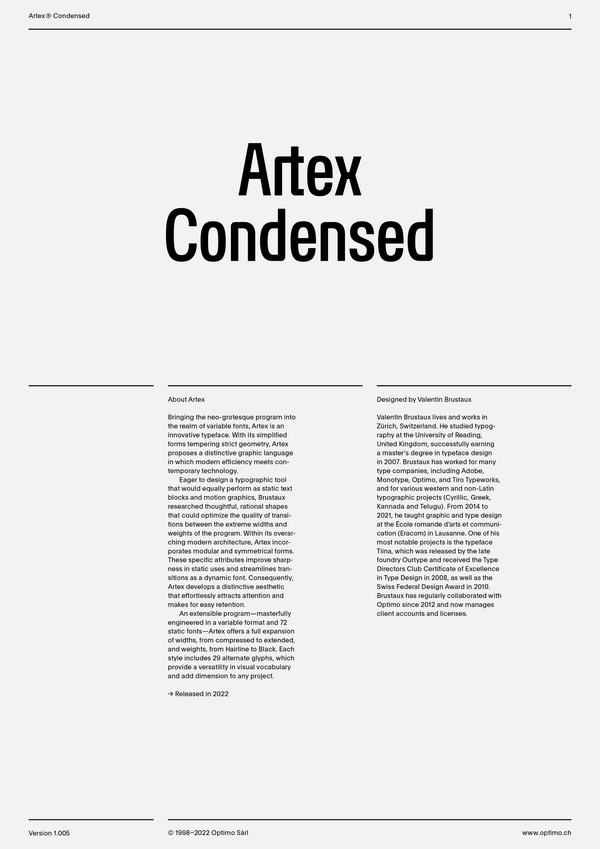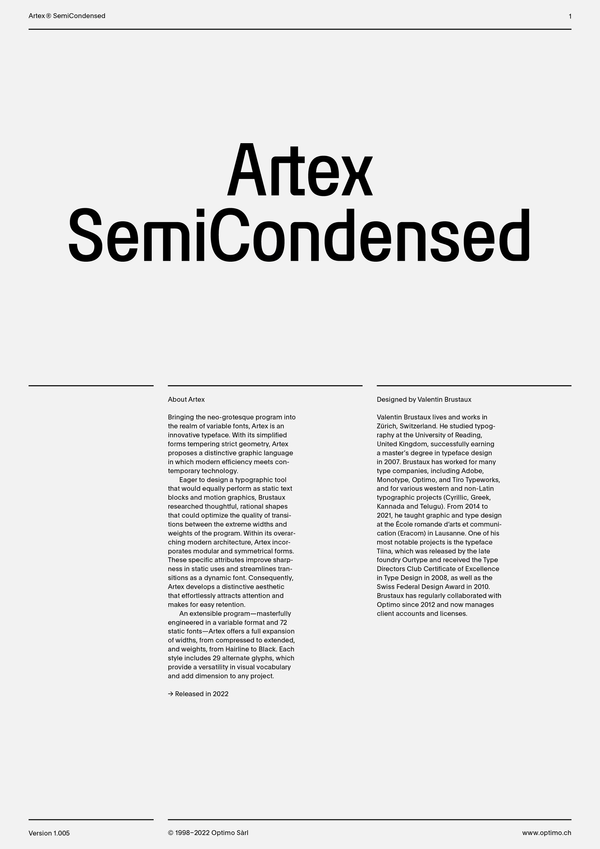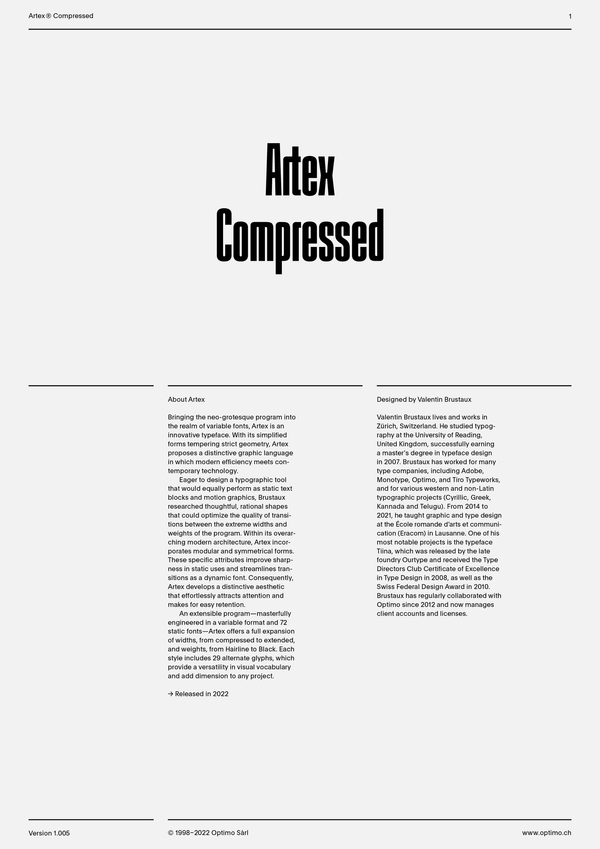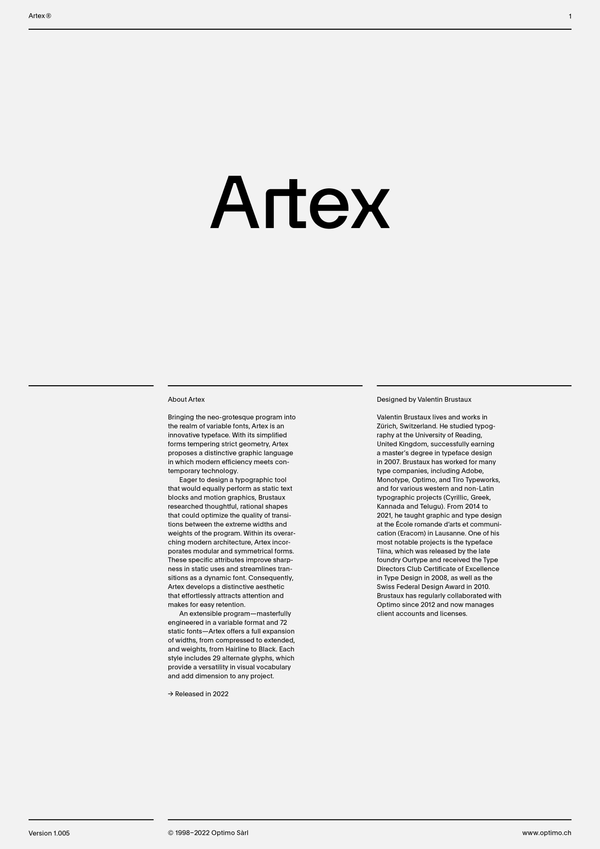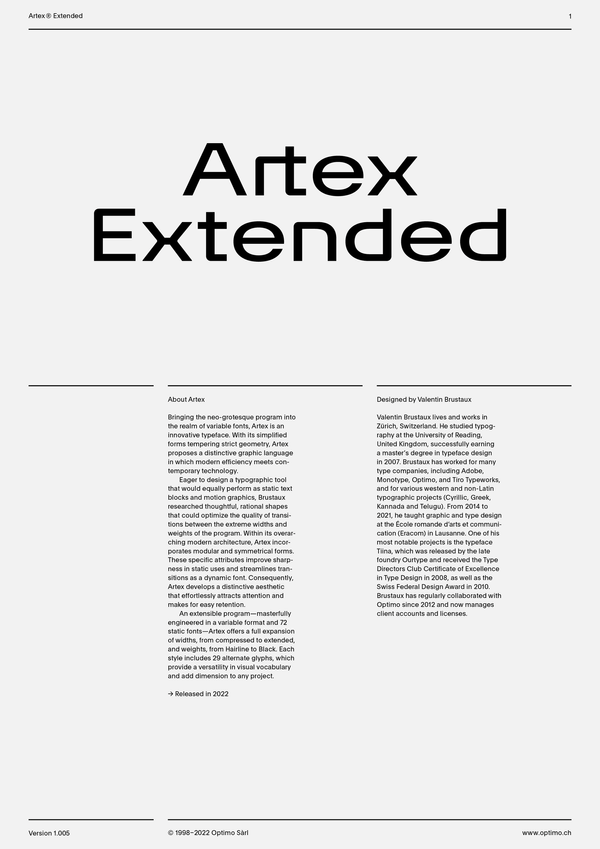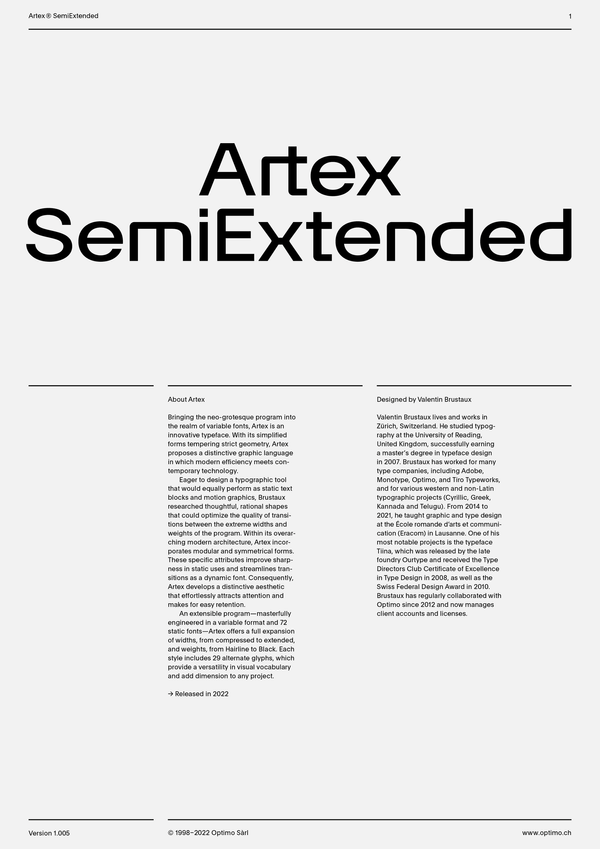
Artex
Case Sensitive Forms
All Caps [cpsp]
Case Sensitive Forms [case]
This function formats the text in uppercase and adjusts spacing between all capital letters. It also applies the ‘Case Sensitive Forms’ feature which replaces certain characters with alternates that are better suited for all capital text, especially related to punctuation.
Contextual Alternates
Contextual Alternates [calt]
This feature adapts the position of a glyph after its surrounding context. For instance, a dash placed between two uppercase letters or numbers will be replaced by an uppercase version of the dash, slightly higher. This feature is usually active by default in Adobe applications.
Standard letters and figures
Stylistic Set 1 [ss01]
This feature replaces glyph(s) with stylistic alternate(s).
Serif a
Stylistic Set 1 [ss01] and Stylistic Set 2 [ss02]
The activation of both features replaces glyph(s) with stylistic alternate(s).
Single-storey a
Stylistic Set 1 [ss01] and Stylistic Set 3 [ss03]
The activation of both features replaces glyph(s) with stylistic alternate(s).
Standard g b d p q
Stylistic Set 4 [ss04]
This feature replaces glyph(s) with stylistic alternate(s).
Standard h m n r u
Stylistic Set 5 [ss05]
This feature replaces glyph(s) with stylistic alternate(s).
Standard capitals
Stylistic Set 7 [ss07]
This feature replaces glyph(s) with stylistic alternate(s).
Standard G
Stylistic Set 9 [ss09]
This feature replaces glyph(s) with stylistic alternate(s).
Alternate G
Stylistic Set 10 [ss10]
This feature replaces glyph(s) with stylistic alternate(s).
Standard Q
Stylistic Set 11 [ss11]
This feature replaces glyph(s) with stylistic alternate(s).
Standard figures
Stylistic Set 8 [ss08]
This feature replaces glyph(s) with stylistic alternate(s).
Tabular Lining Figures
Tabular Lining Figures [tnum–lnum]
Based on the proportions of the capitals, lining figures have an invariable height. With the combination of the tabular spacing format, the width of each numeral is uniformized. This feature is useful when numerals need to all lined up. It facilitates the reading of numbers set within columns or tables. As some applications don’t have access to this feature, proportional figures are set as the default choice.
An extensible program—masterfully engineered in a variable format and 72 static fonts—Artex offers a full expansion of widths (from compressed to extended) and weights (from hairline to black). Each style includes 29 alternate glyphs, which provide a versatility in visual vocabulary and add dimension to any project.